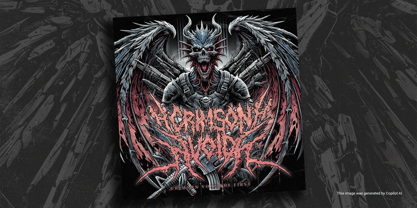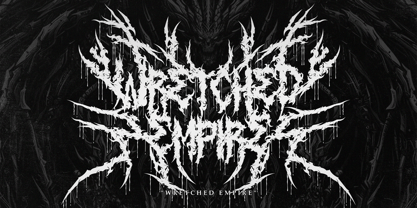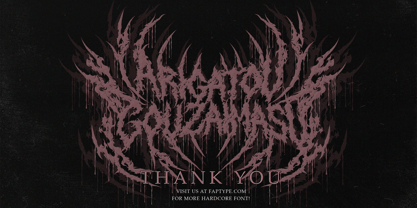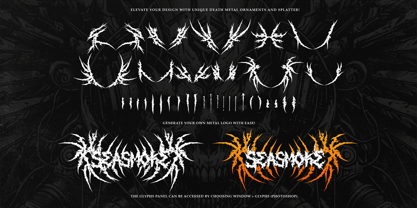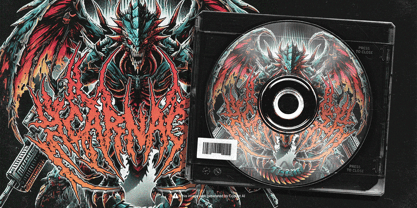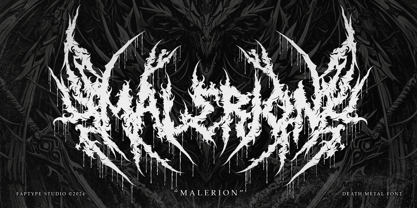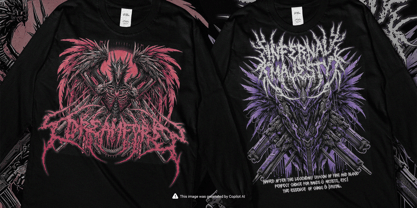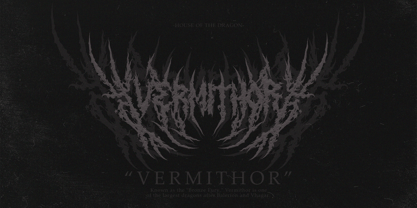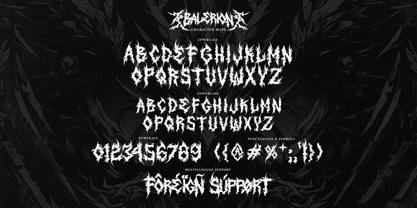
Malerion
Prepare to unleash the unrelenting power of Malerion, our newest font creation inspired by the raw intensity and dark allure of death metal. Malerion captures the essence of chaos, brutality, and grandeur, making it the perfect choice for bands, artists, and designers who dare to embrace the darkness.
Every stroke of Malerion is crafted with precision to evoke the jagged edges of iron blades and the scorched textures of ancient ruins. This font’s intricate, aggressive detailing mirrors the relentless energy of death metal’s signature sound, making it impossible to ignore. With its sharp, interlocking forms and brutal aesthetics, Malerion demands attention on album covers, band merchandise, event posters, and more.
Whether you're branding a festival of sonic destruction, designing killer apparel, or creating visuals for a dystopian masterpiece, Malerion ensures your message resonates with an untamed, primal force. The font supports a full range of characters, symbols, and multilingual options, so your art can conquer across any medium or language.
Why Choose Malerion?
• Dominating Presence: Perfectly embodies the rebellious spirit of metal culture.
• Detailed Craftsmanship: Each letter oozes brutal artistry, delivering an unapologetically aggressive vibe.
• Versatility: Adaptable to various creative needs—from logos to social media banners, physical prints, and beyond.
• Metalhead-Approved: Designed with an authentic love for the genre to resonate with true fans and creators alike.
Awaken the beast within your designs and channel the power of the Black Dread. With Malerion, your art won't just stand out—it will obliterate the competition.
Malerion features:
• A full set of uppercase and lowercase
• Numbers and punctuation
• Multilingual language support
• PUA Encoded Characters
• OpenType Features
• +367 Total Glyphs
• +137 Death Metal Ornaments and Splatter included!